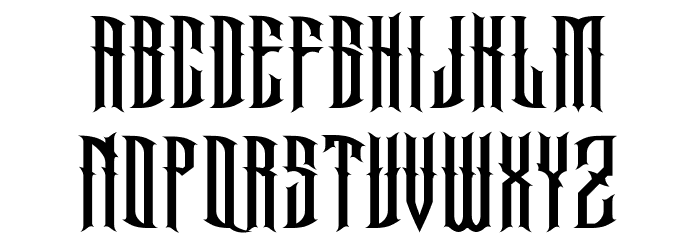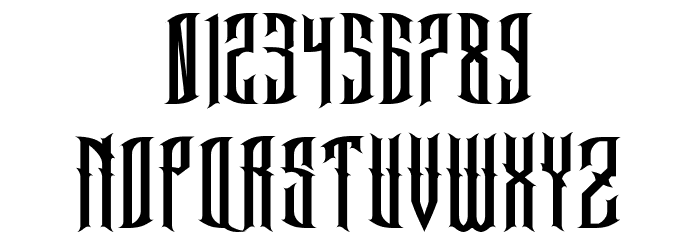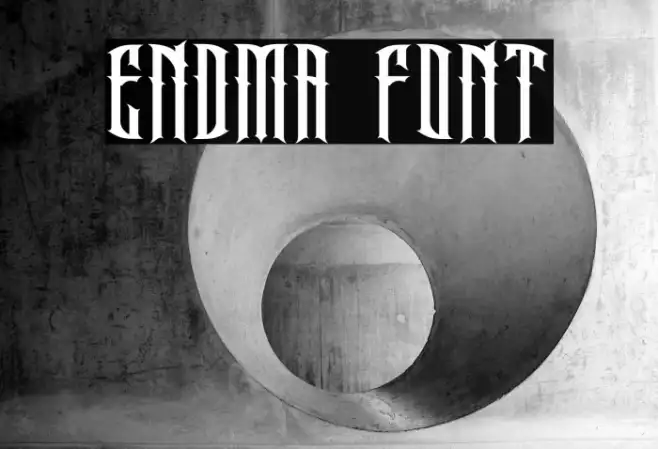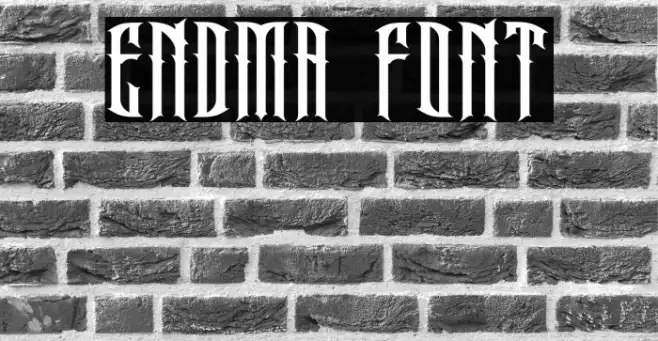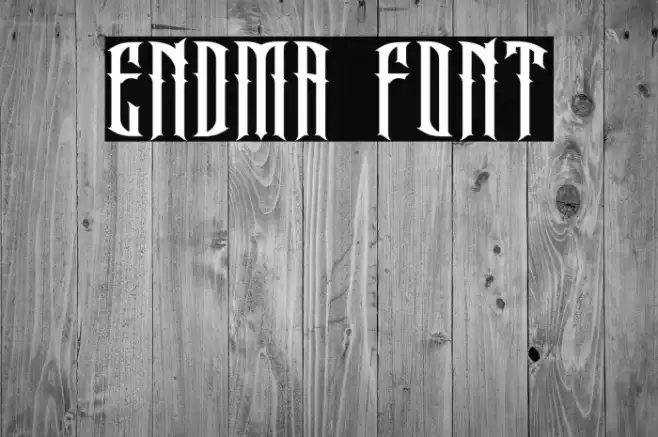
Endma Font
This font exhibits a striking and bold blackletter style, characterized by its sharp, angular lines and intricate detailing. The uppercase letters are tall and narrow, with dramatic flourishes that give it a gothic and medieval appearance. The numerals and special characters maintain the same stylistic elements, ensuring consistency across all glyphs. The font's design is reminiscent of traditional calligraphy, yet it incorporates modern elements that make it suitable for contemporary use. Its distinctiveness and elaborate design make it ideal for projects that require a strong visual impact.
A bold, gothic blackletter font with sharp, angular lines and intricate detailing.
- Proposed Projects: Ideal for branding, album covers, posters, and any design requiring a gothic or medieval aesthetic.
- Overall Style: Gothic
- Use Case: Logos, Headlines, Decorative purposes